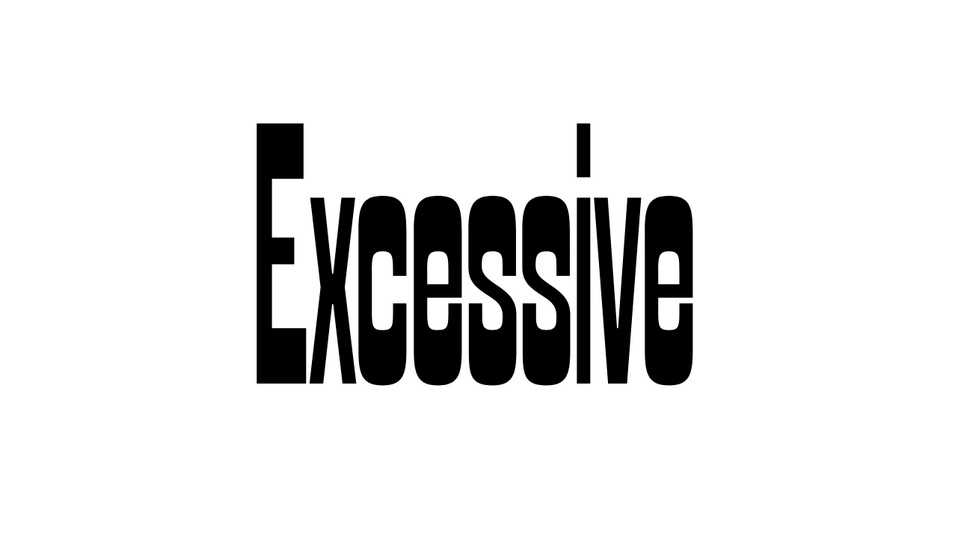
Download Excessive font, a reverse contrast display typeface based unnamed wood typeface designed by the Jacoby & Fils printing house in Grenoble. Excessive font takes a bold leap into the past, reviving the charm and uniqueness of vintage wood type design with a contemporary twist.
Designer: Clara Dousson